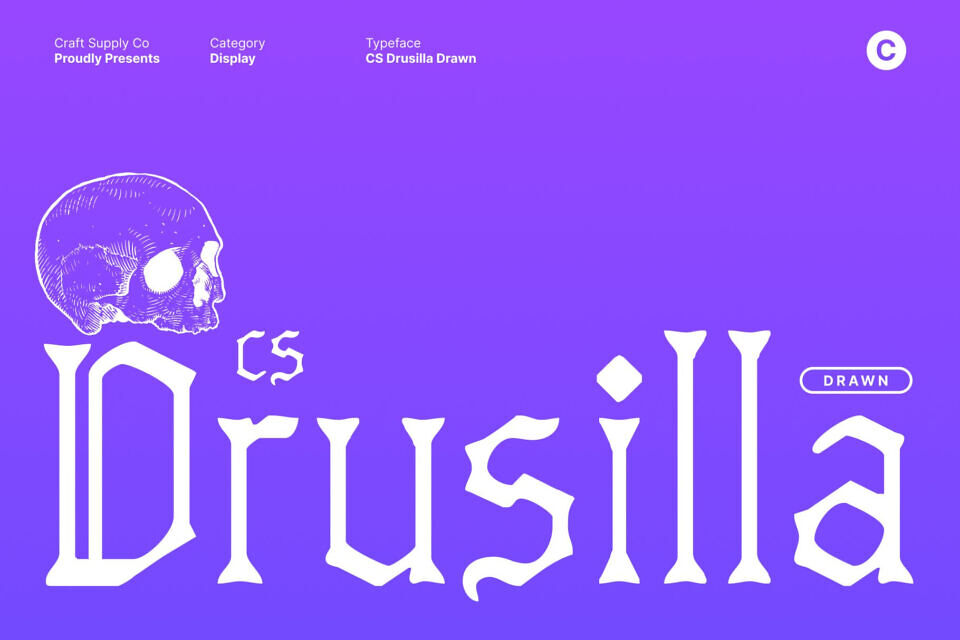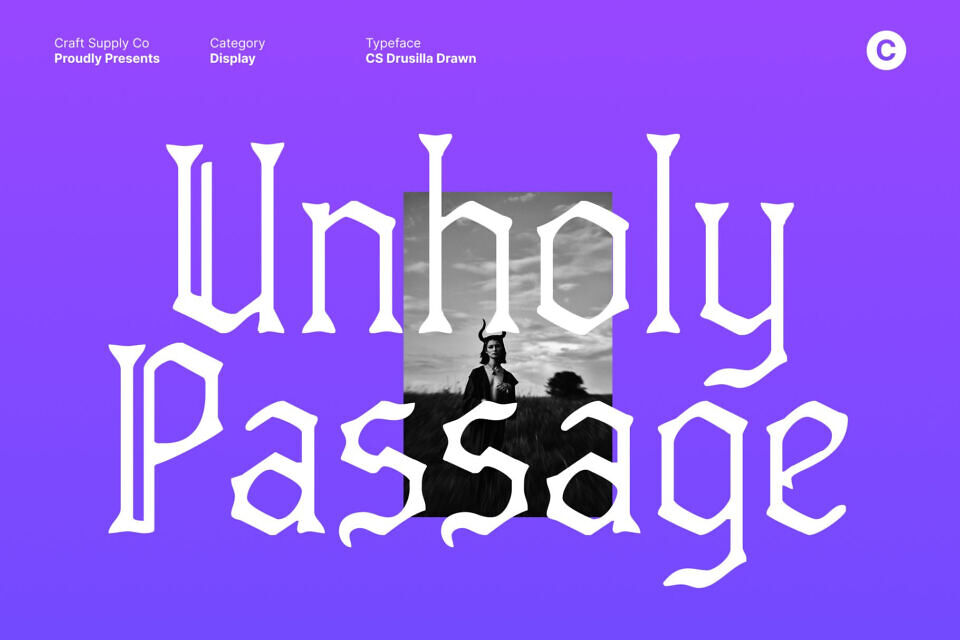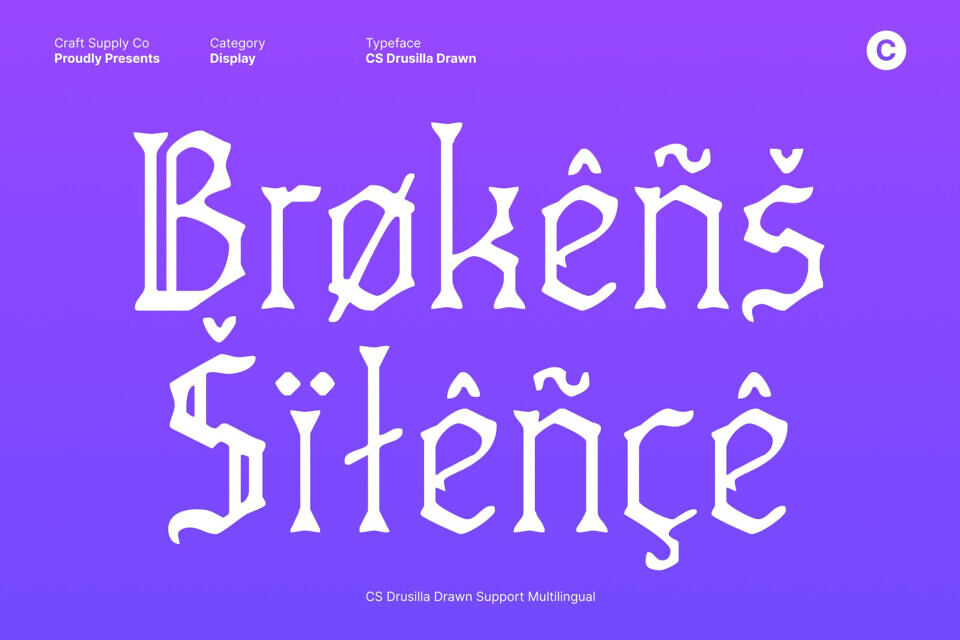
Drusilla Drawn is a decorative Blackletter display font that commands attention through bold, dramatic strokes and striking letterforms. Inspired by classic Gothic typography, it carries a strong sense of tradition, mystery, and authority. The sharp angles and heavy vertical emphasis give the font a powerful visual weight, making every word feel intense and expressive.
This font is perfect for book covers, dramatic posters, album artwork, logos, and branding that demand a strong, memorable impression. Its bold presence and artistic texture help create designs that feel iconic, mysterious, and full of character.